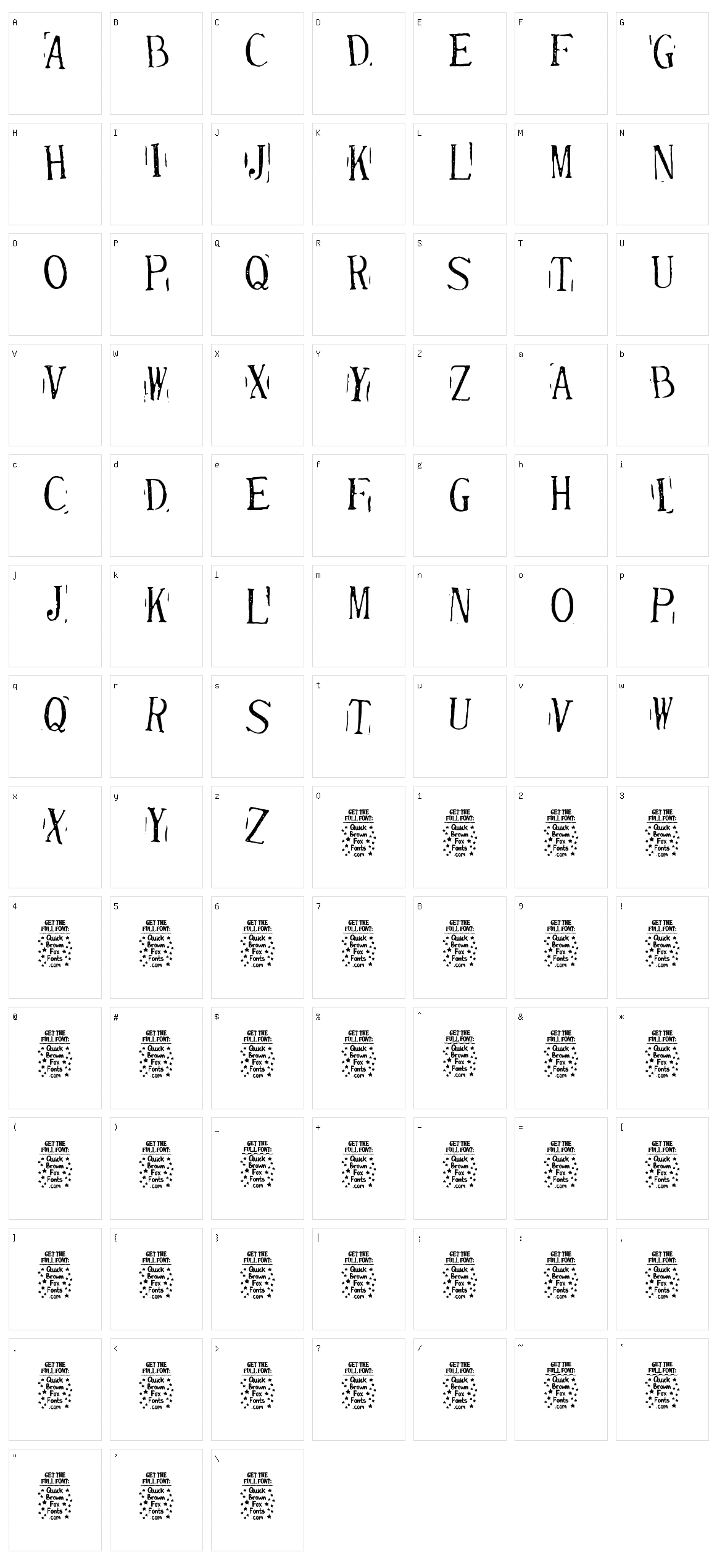
The free font Randy Described Eternity is carefully designed by Quick Brown Fox Fonts, showcasing a thoughtful balance of creativity and usability and falls under the Distorted font style. When you download the ZIP file, it contains only 110.76 KB of font files, making it lightweight and quick to download. Please review the license details below to understand permitted usage and distribution rights. If license information is not available, we recommend using this font for personal projects only or contacting the author directly for commercial usage permissions.